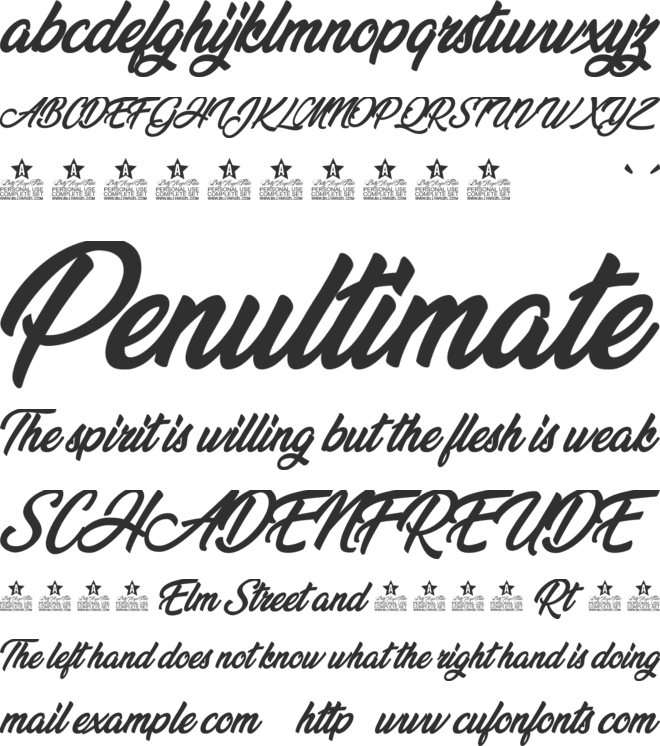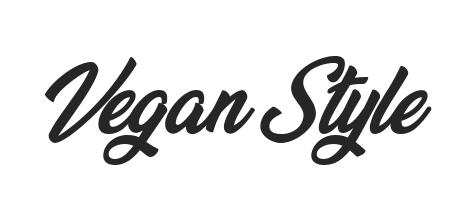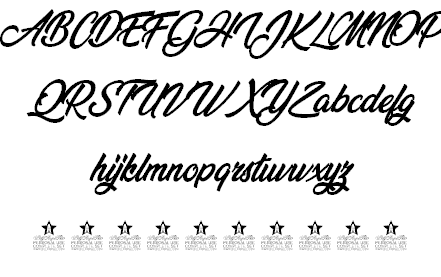
Vegan style is a high quality calligraphy font that is designed by billy arge and is available for free download and personal use. Vegan style is a high quality calligraphy font that is designed by billy arge and is available for free download and personal use.
This is a handwritten font.
Vegan style font otf. This typeface has been the most classic and formal texture available at the time. Vegan style font download is a font suitable for calligraphy with high quality, legitimately free fonts. Vegan style is a high quality calligraphy font that is designed by billy arge and is available for free download and personal use.
Vegan style personal use 400 (ttf) type your text. The free version provides all uppercase and lowercase letters and a few special characters too. This font was created in 2018.
You can use this font for personal purpose. This typeface was inspired by george bickham’s. Vegan style font is belonging to the handwritten typeface family and the designer of this stylish font is billy arge, he designed it in 2018.
This demo font is for personal use only! This is a freeware font that contains only one style that is known to be a regular type. The free version provides all uppercase and lowercase letters and a few special characters too.
Vegan style is a high quality calligraphy font that is designed by billy arge and is available for free download and personal use. 1 style available download zip (47 kb) click to preview. Vegan style is a completely free font that you can use in your graphic designs.
The free version provides all uppercase and lowercase letters and a few special characters too. Download typeface vegan style free. This amazing font comprises 256 impressive glyphs and 280 different types of characters including.
The choice of this font is very good to make their designs stand out. There is no need for any license, signup, or regurgitation to use this font for your personal use. Vegan abattoir by chequered ink.
It has one style that is regular style and this freeware version can use in all your personal projects. Vegan style font was developed by graphics designer billy argel. Simply test and download this free high quality vegan style regular font version 1.000 which found in script font category, and this font is designed by billy argel, make sure you check the license before using this font.
Today, every designer strives to convey their ideas to other people through their work. Vegan style font free download. Vegan style font is the type of script typeface font family.